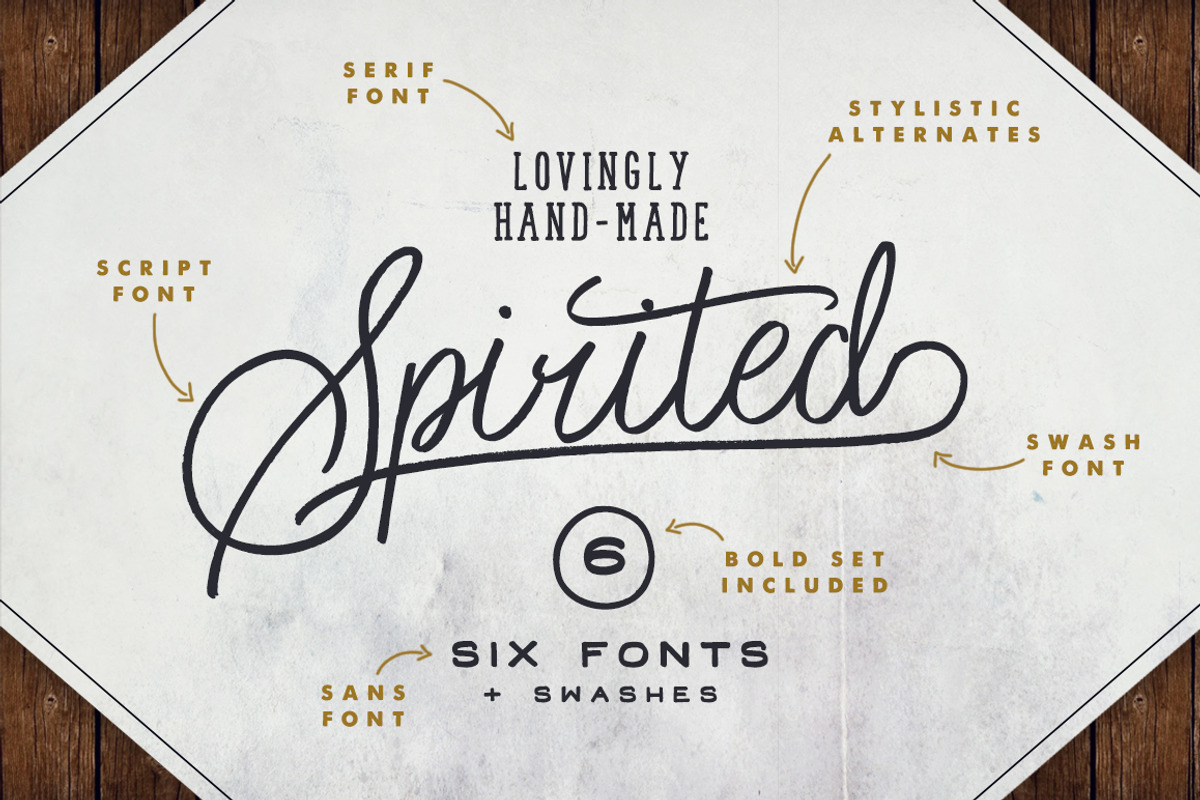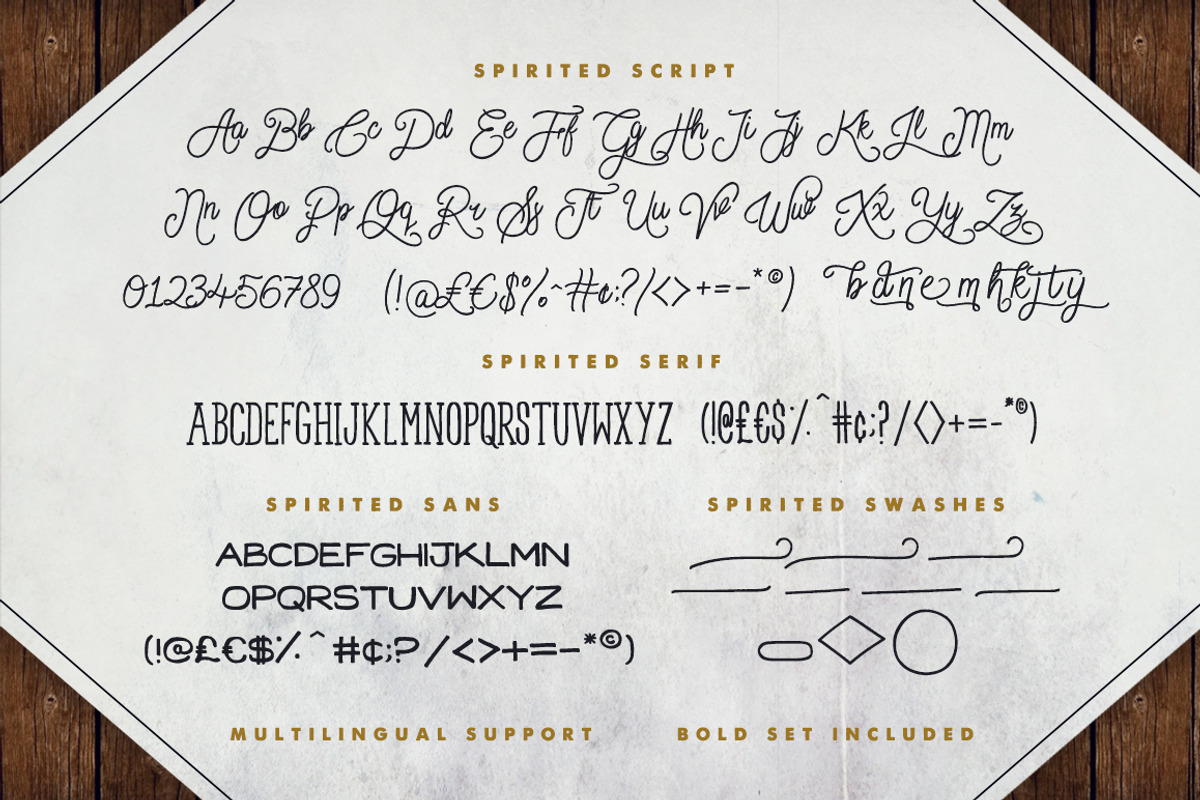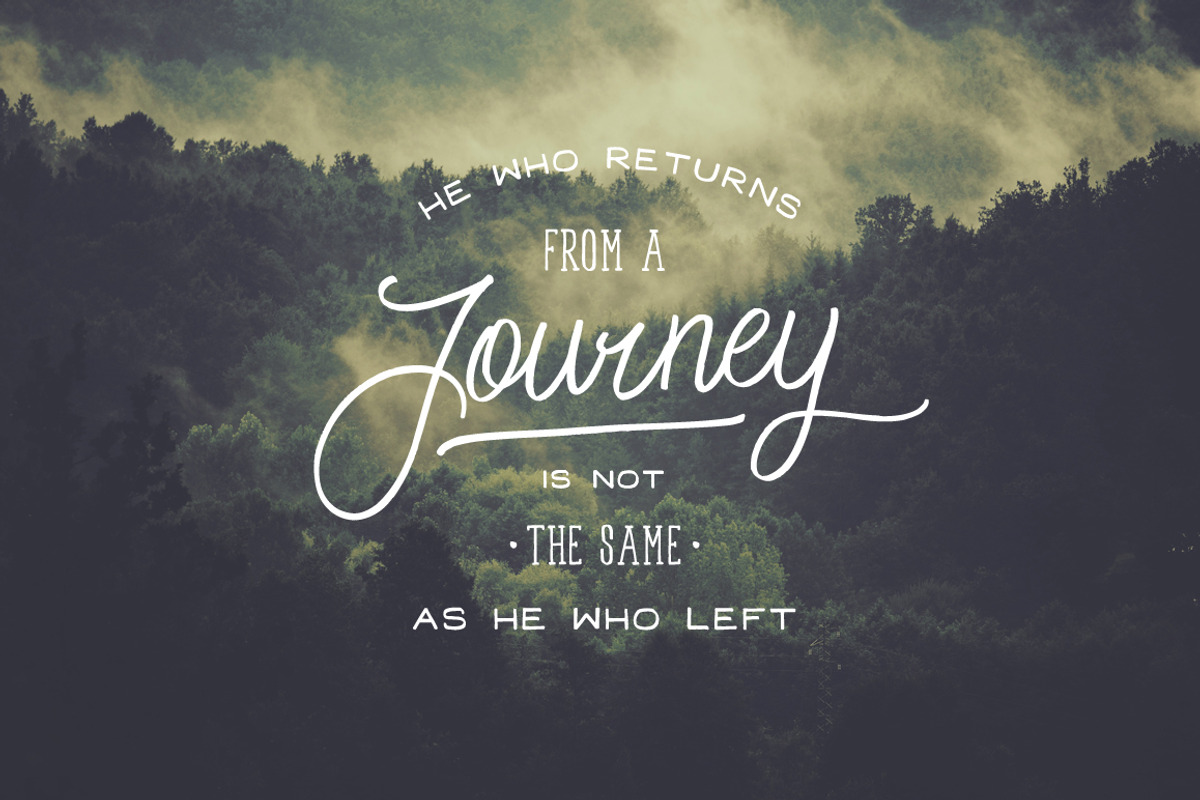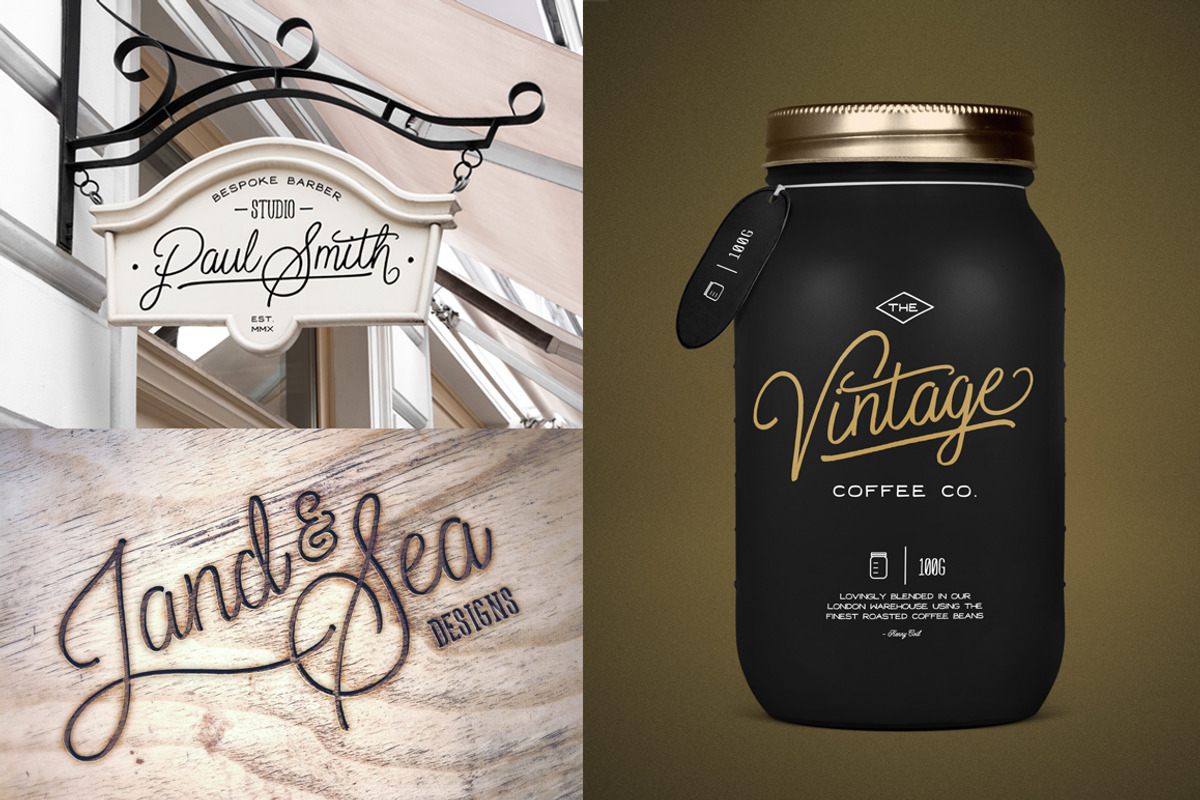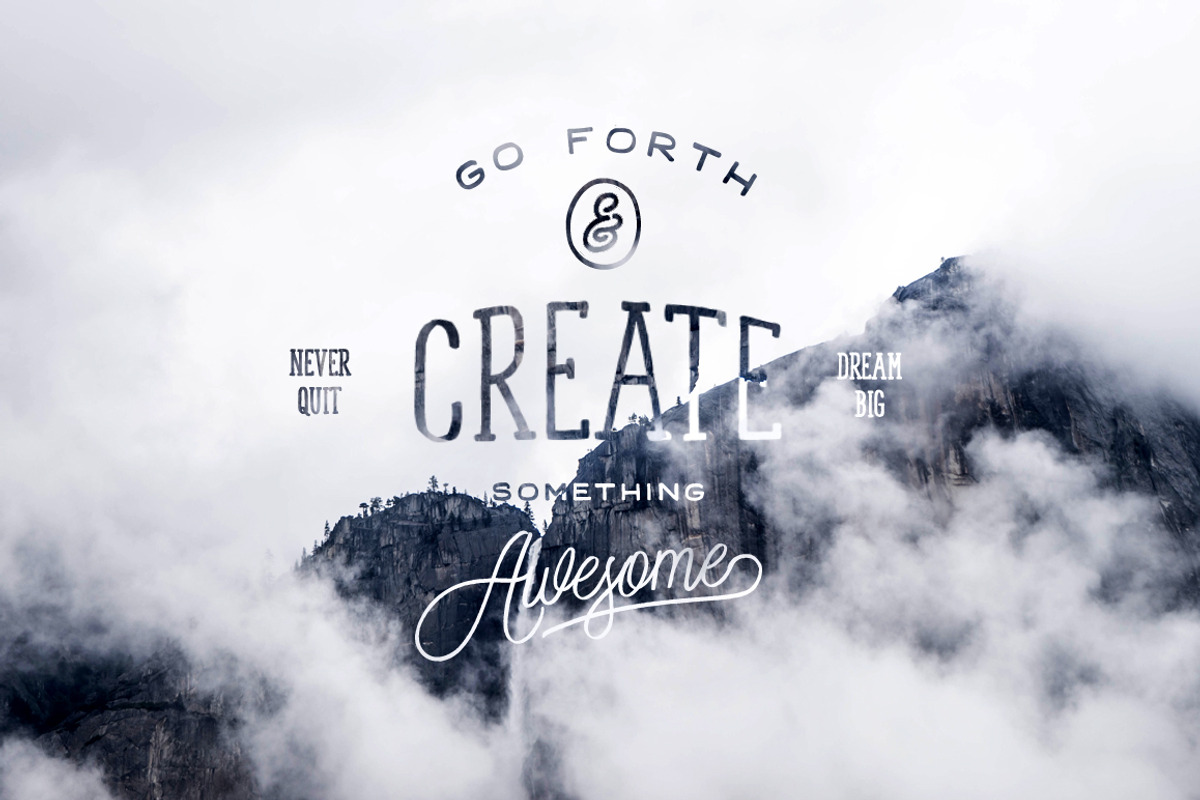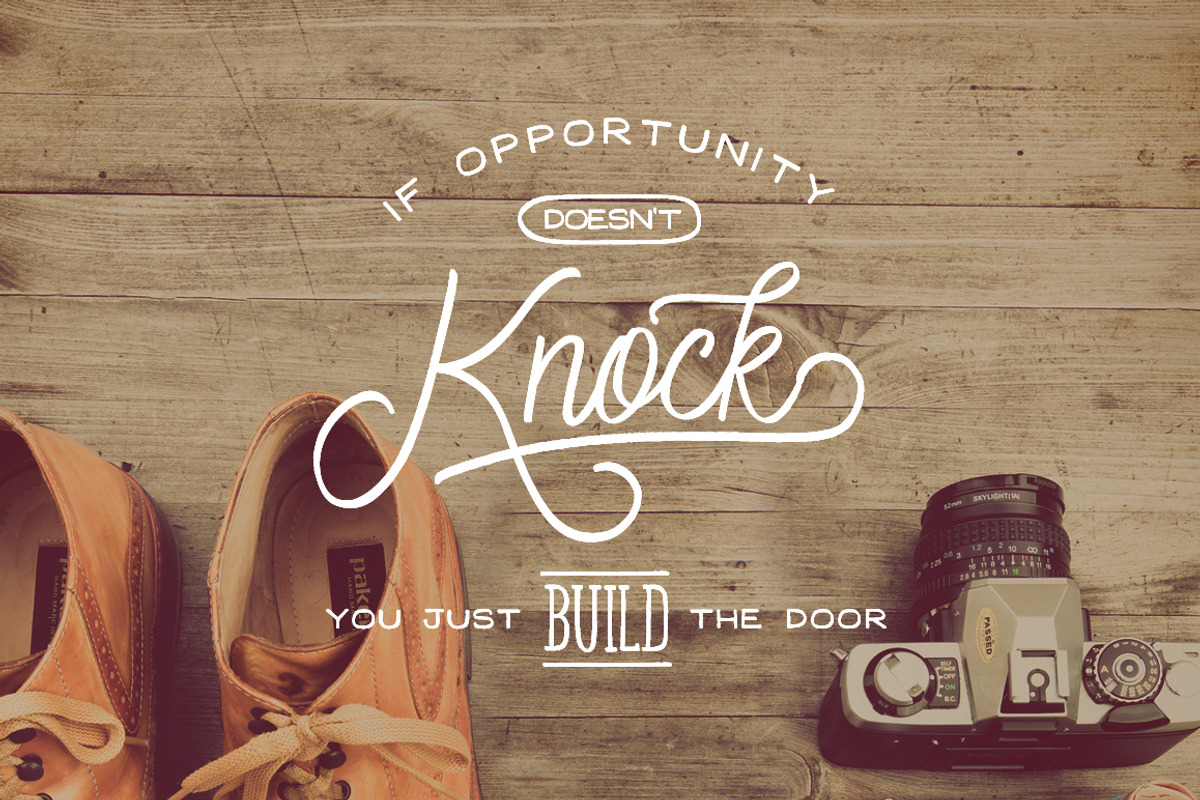
Spirited • 6 Fonts + Swashes
Spirited • 6 Fonts + Swashes by Sam Parrett is a font selected for branding, posters, packaging, typography.
- Also included is a bonus swash font, consisting of 10 various swashes and shapes designed to give your text that extra touch of detail & att
- ★Please note the fonts are hand-drawn, so there are rough edges throughout in order to give it an authentic feel★ What's Included?
- More details below; Spirited Script Regular & Bold is a set of upper & lowercase cursive characters which includes a large range of punctuat
- Spirited Serif Regular & Bold is a set of upper-case only condensed serif characters which includes a large range of punctuation glyphs, num
- Stylistic alternates for several lowercase characters are also available, accessible in the Adobe Illustrator Glyphs panel, or under Stylist
- Spirited Sans Regular & Bold is a set of upper-case only wide sans-serif characters which includes a large range of punctuation glyphs, nume
Why Spirited • 6 Fonts + Swashes is worth a look
Spirited • 6 Fonts + Swashes by Sam Parrett fits naturally into Branding, posters, packaging, typography.